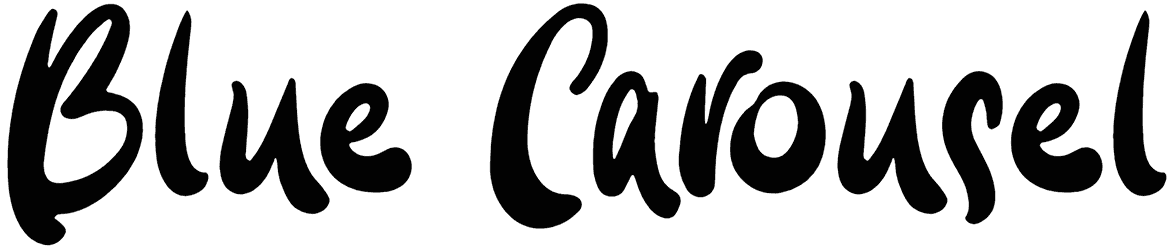
Blue Carousel Font
If you want a summary and a soft look for your words, this script font might be perfect for you. Every character in Blue Carousel is built big with handwritten brush effects on them that give a youthful, bright, and cheery feeling to your writing.
You can use this beach font for teenage movie and book titles, Halloween posters and flyers, channel banners, and graffiti texts, and have a perfect look through its curvy elements.